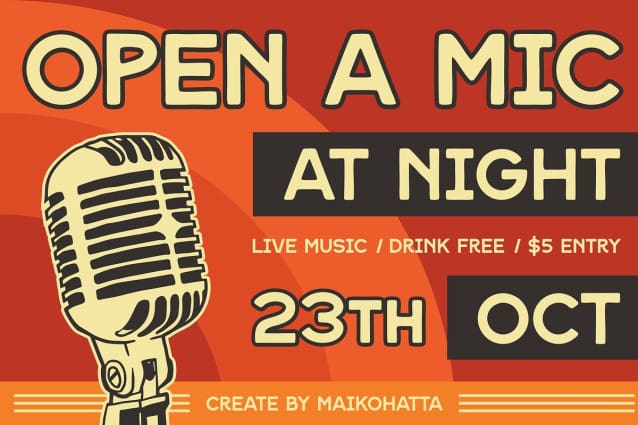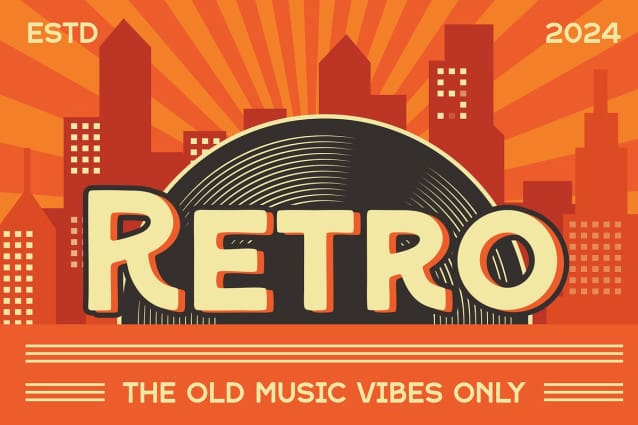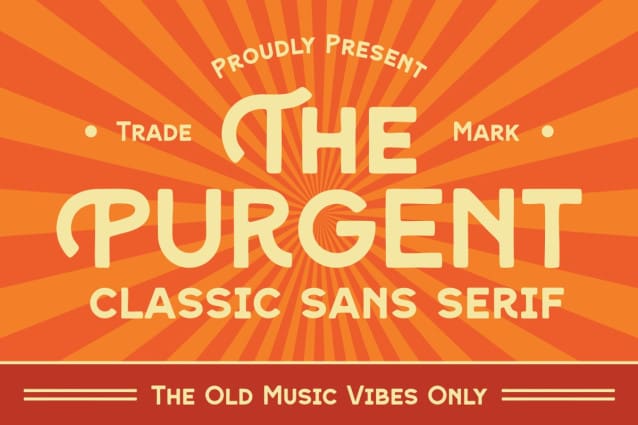
Purgent Font
Purgent Font – Classic Sans Serif Font is a bold and authentic display font. The font is suitable for any branding project like logo, Template Design, esport, and many more. outstanding in a wide range of contexts.